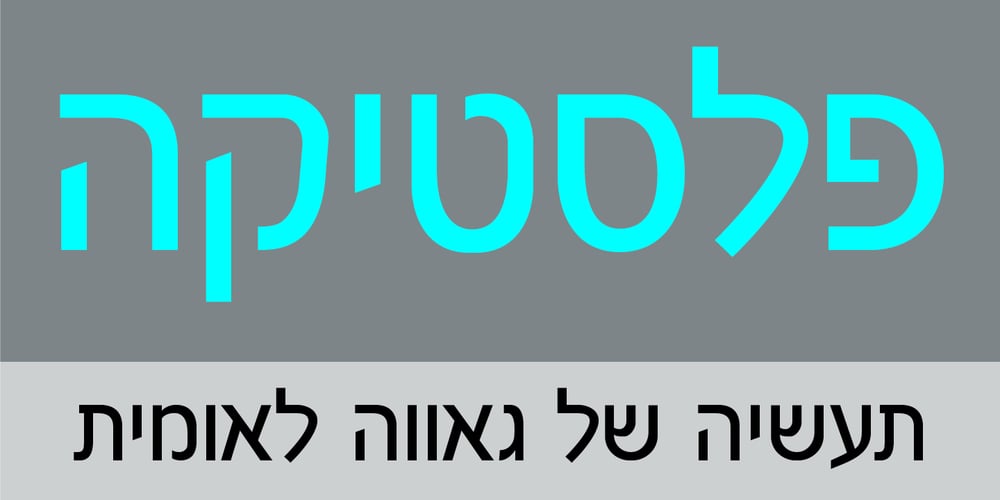
Mamtina MF Font Family was designed by Zvika Rosenberg and published by Masterfont. Mamtina MF contains 3 styles and family package options. A practical font family with 3 weights for all your day by day design needs: headlines, body text, signage etc.High legibility at small sizes. An extended sans serif typeface with rounded endings that provides unique softness appearance without losing legibility.